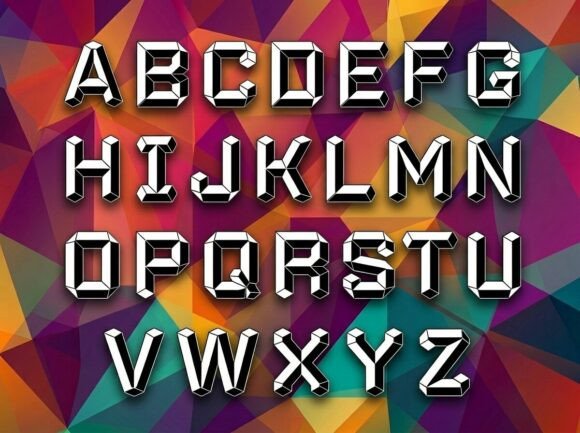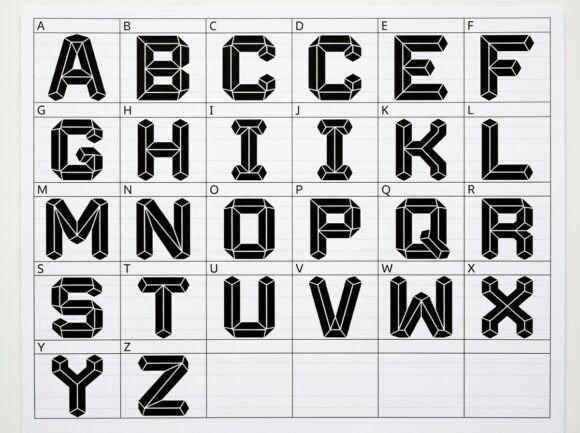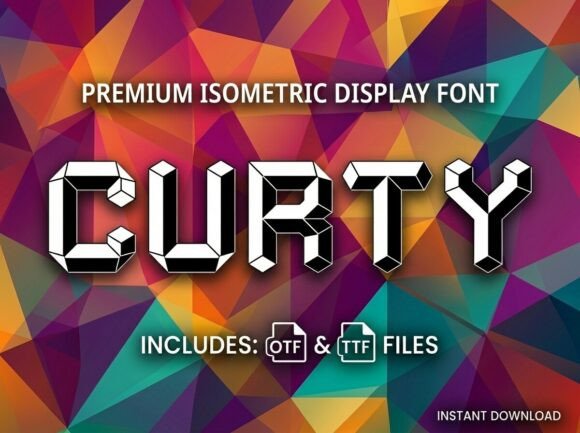
The Perfect Font for the Modern Designer
You’ve spent hours perfecting the layout, tweaking the colors, and fine-tuning the text. But something’s still missing – that special something that elevates your design from good to great. For designers, the right font can be the difference between a project that feels flat and one that truly pops. That’s where Curty Font comes in – a premium isometric display font designed to add a new dimension to your creative arsenal.
With its bold, three-dimensional letterforms and clean geometric lines, Curty Font is the perfect choice for designers looking to add a touch of industrial strength and technical precision to their work. Whether you’re designing a logo for a tech startup or creating a futuristic event poster, this font delivers a sense of structured power and precision that’s hard to find elsewhere.
Key Features of “Curty Font”
- Font Family: Curty Font is a sans-serif font family.
- Unique Characteristics: The font features a unique, playful, and modern design, making it ideal for creative and informal projects.
Curty Font Review
Overall, I think the Curty Font has some great qualities that make it a solid choice for designers. ✨ Here are a few things that stood out to me:
- Unique character: The Curty Font has a distinct, quirky feel that can add some much-needed personality to a design.
- High legibility: Despite its playful appearance, the font is surprisingly easy to read, making it a great choice for body text.
- Customization options: The font comes with a range of styles and weights, allowing designers to tailor the look to their specific needs.
However, there are a few limitations to consider ⚠️:
- Not ideal for headlines: While the Curty Font is great for body text, it may not be the best choice for headlines, as it can be a bit too playful and may get lost in a busy design.
- Limited support for special characters: I found that the font had some issues with certain special characters, such as em dashes and en dashes.
Overall, I think the Curty Font is a solid choice for designers who are looking for a unique, high-legibility font. While it may have some limitations, I think the benefits far outweigh the drawbacks.
Getting the Most Out of Curty Font
For the best results, use Curty Font with bold or italic text to emphasize key points.
Combine Curty Font with other creative elements, such as illustrations or graphics, to create visually appealing designs.
Curty Font is ideal for:
Designing invitations, party banners, or other celebratory materials.
Creating social media graphics, such as Facebook posts or Instagram stories.
Developing branding materials, such as logos or business cards.
Alternatives to “Curty Font” for Designers
Great Vibes is a beautiful, cursive script font that’s perfect for adding a touch of elegance and sophistication to your designs. It’s ideal for use in headings, titles, and quotes. Great Vibes is more polished and refined compared to Curty Font, making it a great choice for formal or high-end projects.
Comparison: Great Vibes is more elegant and refined, while Curty Font is more casual and playful.
Pacifico is a stunning, modern script font that’s perfect for adding a touch of luxury and sophistication to your designs. It’s ideal for use in headings, titles, and quotes. Pacifico is more elegant and refined compared to Curty Font, making it a great choice for formal or high-end projects.
Comparison: Pacifico is more elegant and refined, while Curty Font is more casual and playful.
Lobster is a fun, cursive font that’s perfect for adding a touch of whimsy and playfulness to your designs. It’s ideal for use in headings, titles, and quotes. Lobster is more casual and playful compared to Curty Font, making it a great choice for informal or creative projects.
Yes, the Curty Font is designed to be optimized for screen display. It features a clear and legible design, with a focus on readability at small font sizes. The font also includes a range of technical features, such as sub-pixel rendering and hinting, to improve its appearance on digital displays.